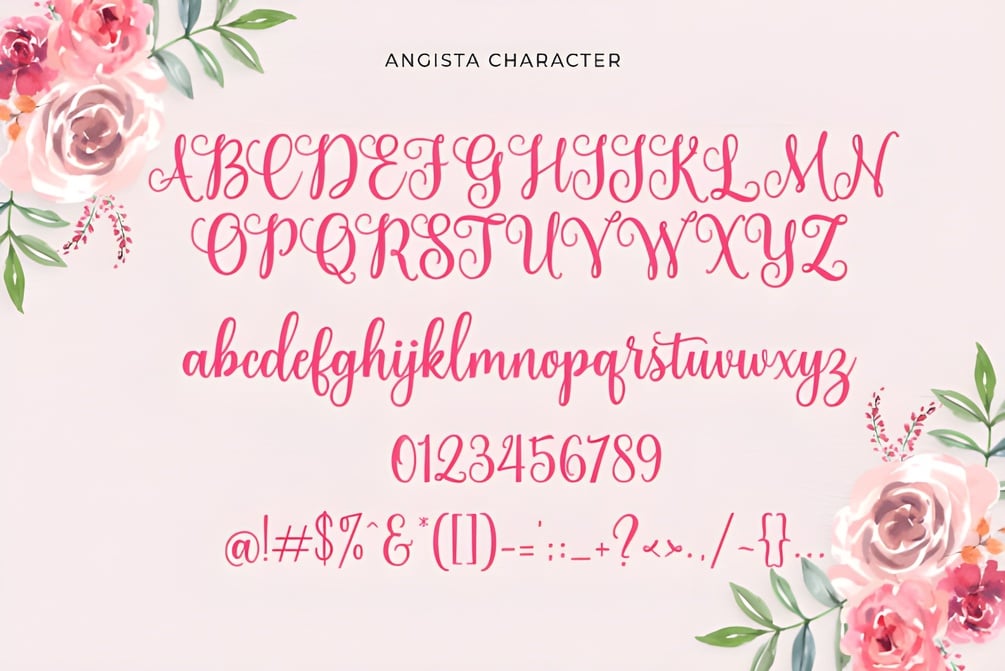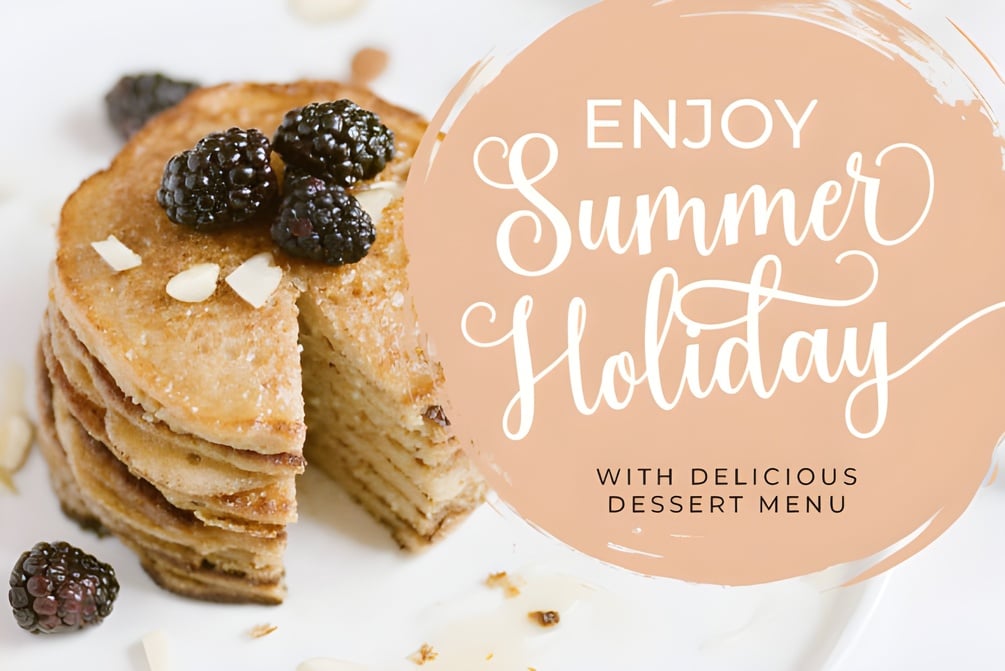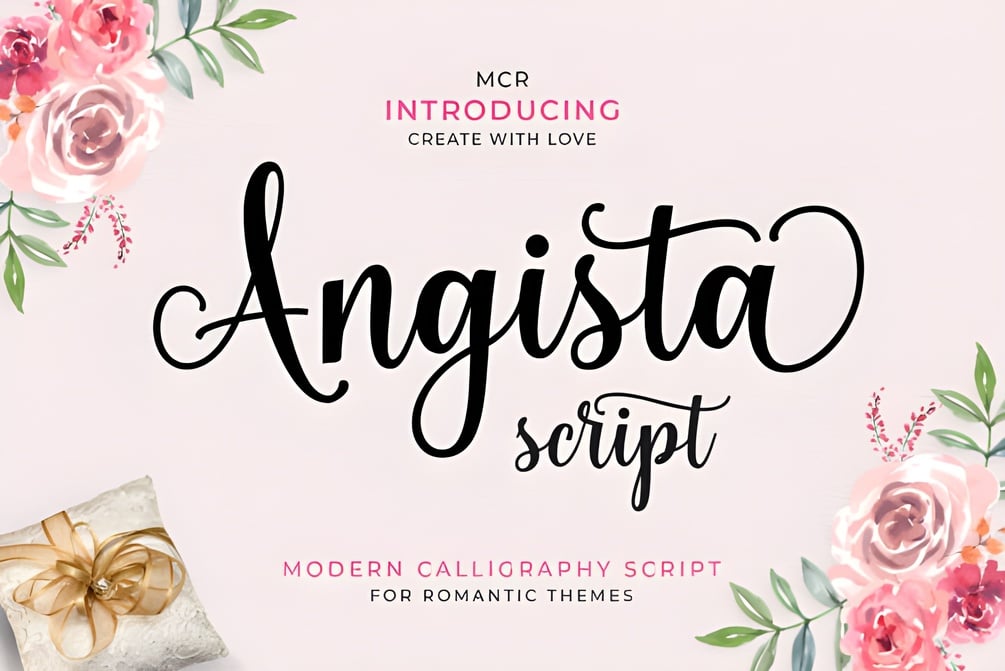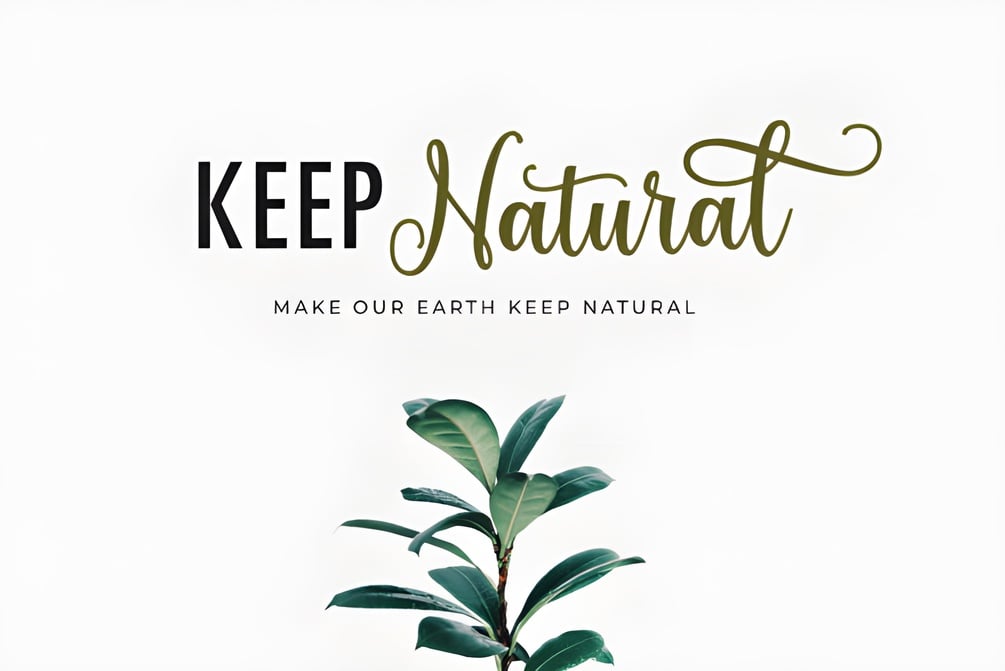
Angista Script Font
Introducing Angista Script – a stunningly elegant script font that brings a touch of luxury and sophistication to your designs. With its gracefully dancing characters and exquisite baseline flow, Angista Script transforms every project into a masterpiece.
This PUA-encoded gem ensures easy access to all its beautiful glyphs and swashes, allowing your creativity to shine effortlessly. Whether you're crafting wedding invitations, branding materials, or social media graphics, Angista Script adds a delicate, yet powerful charm to your work.
Elevate your design game with Angista Script – the perfect blend of beauty and finesse for your next creation.
Angista Script is a luxurious, delicate script font with gracefully dancing characters. PUA-encoded for easy access to glyphs and swashes, it adds elegance to any design project, from invitations to branding. Elevate your creations with Angista Script’s sophisticated charm.